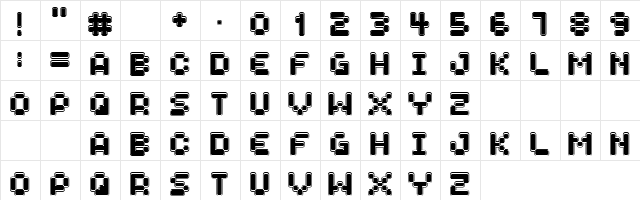
Spaceboy Regular
Design Context for Spaceboy Typeface
Spaceboy takes a measured approach to typography — its balanced proportions and neutral character make it a reliable workhorse for both digital and print work.